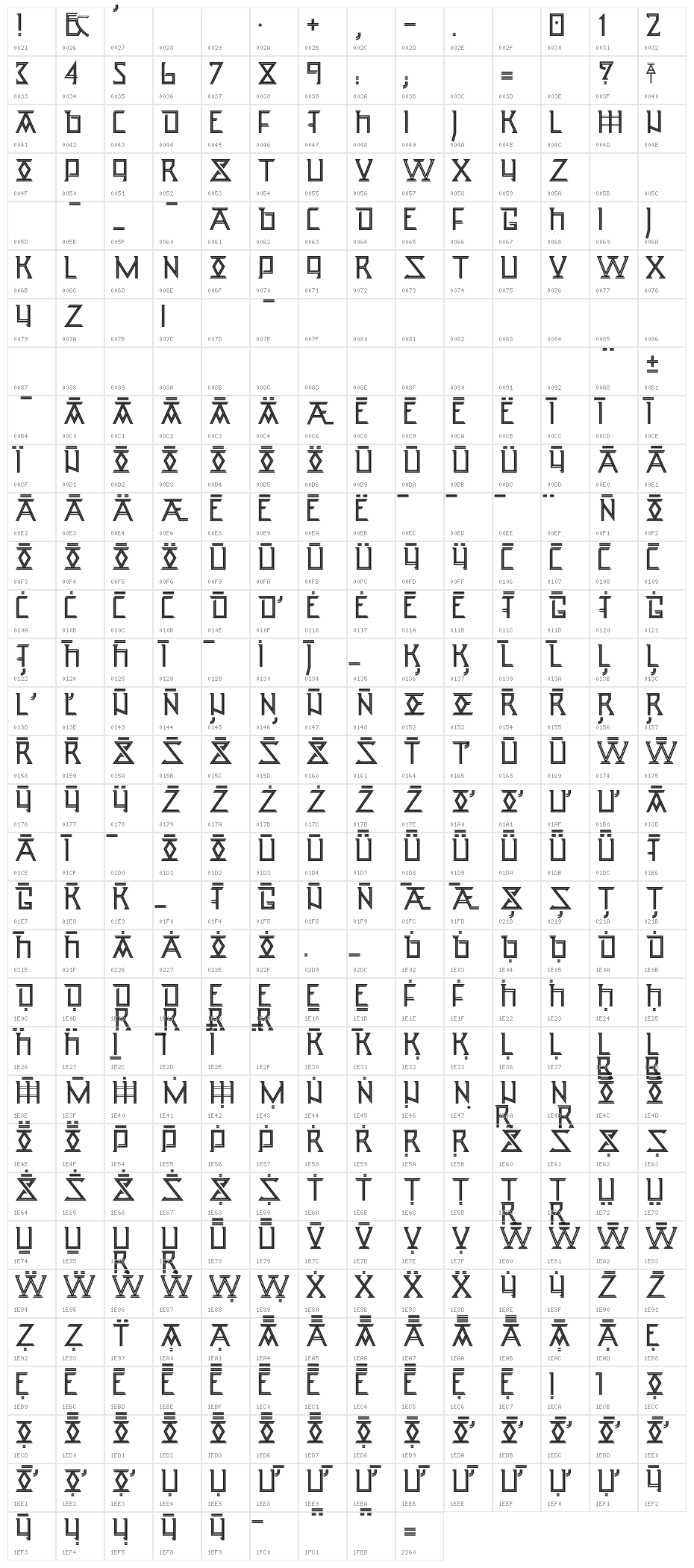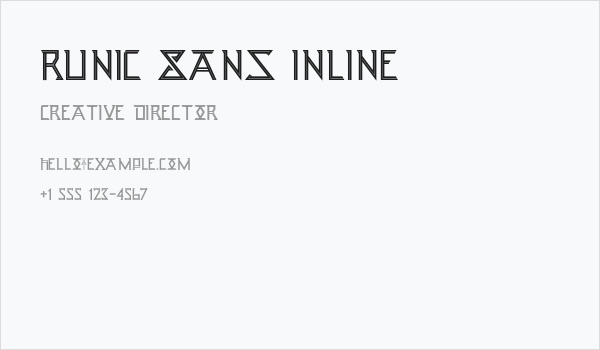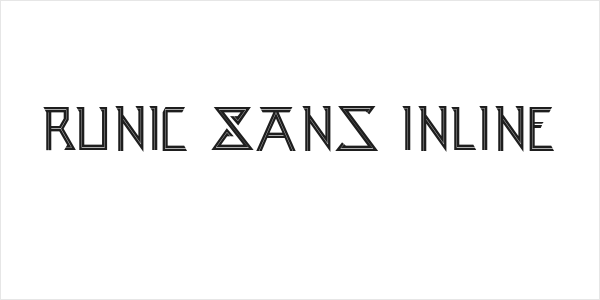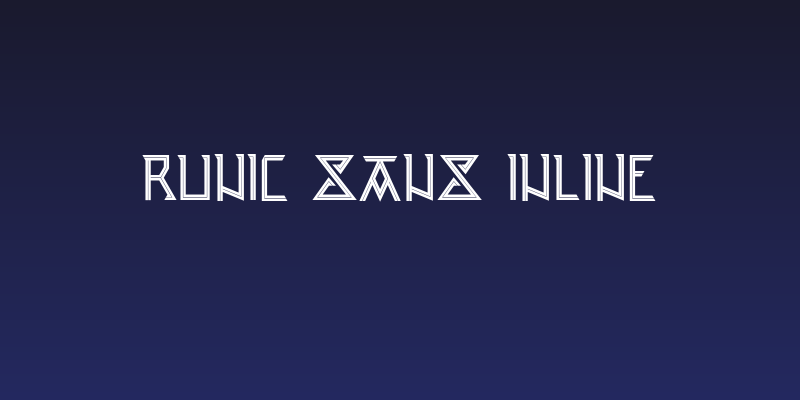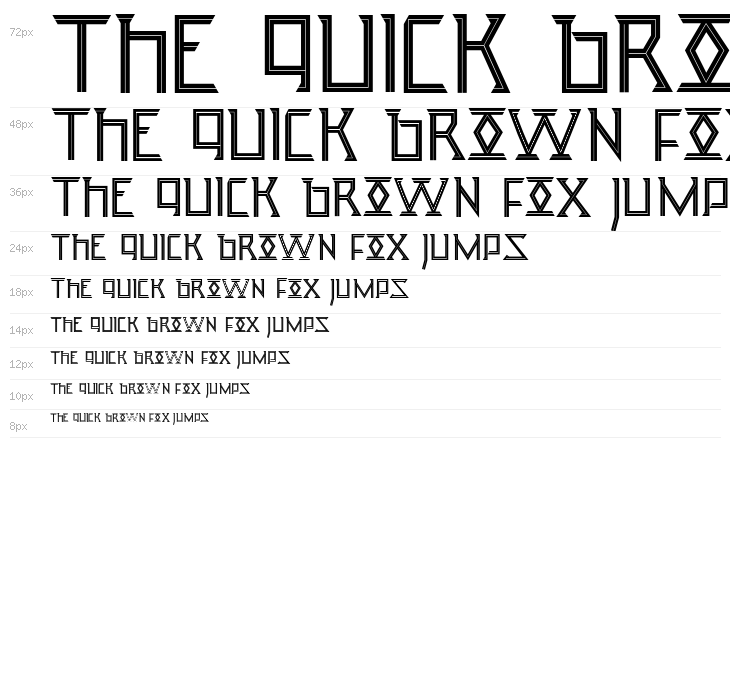
Runic Sans Inline Font
Runic Sans Inline Description
This font features a unique blend of modern and ancient aesthetics, characterized by its angular and geometric shapes reminiscent of runic symbols. The inline design adds a layer of depth and intricacy, making each character stand out with a distinct presence. The uppercase and lowercase letters maintain a consistent style, with sharp edges and a futuristic feel. Numbers and special characters follow the same design principles, ensuring a cohesive look across all elements. The font's bold and striking appearance makes it ideal for projects that require a strong visual impact.
| Proposed Projects | Ideal for branding, posters, video game titles, and any project seeking a futuristic or ancient aesthetic. |